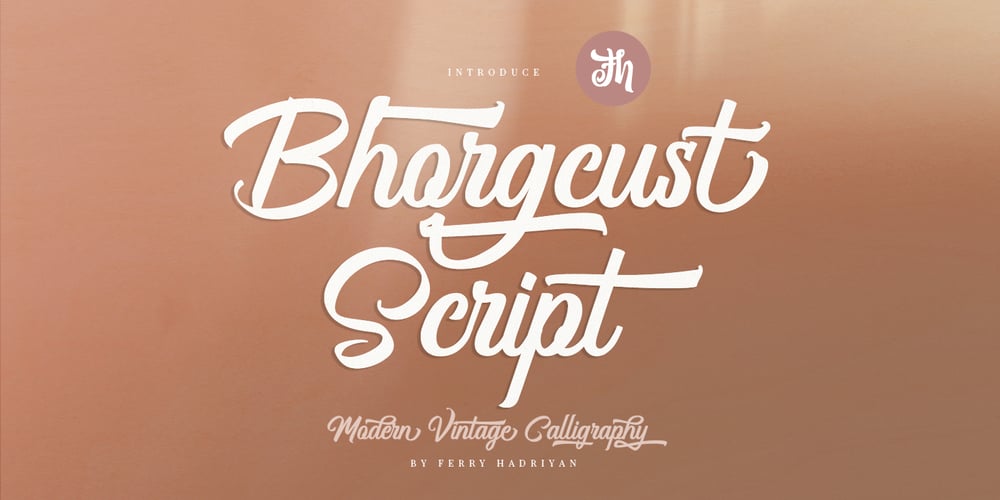
Bhorgcust Font Family was designed by Ferry Hadriyan and published by FHFont. Bhorgcust contains 1 styles and family package options. Bhorgcust is script font with authentic calligraphy style, with elegant swashes combination letter script form, so many opentype feature include of the font. Suitable for design, element design, wedding, event, t-shirt, logo, badges, sticker, and awesome work.